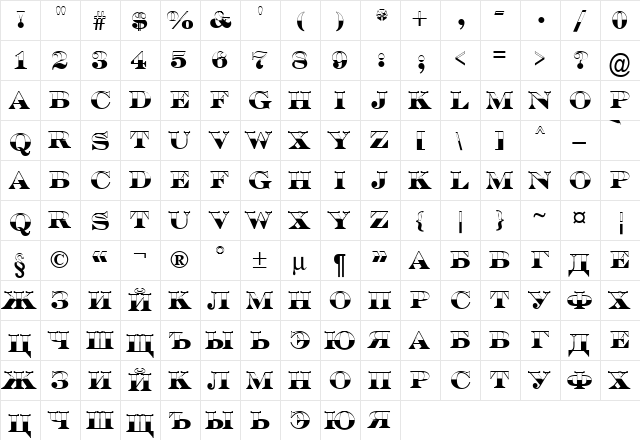
a_SeriferTitulB&W Bold
a_SeriferTitulB&W carries the refined structure of traditional serif typography, with bracketed terminals and considered proportions that communicate credibility and craft. Its bold stroke weight gives it real presence on the page.